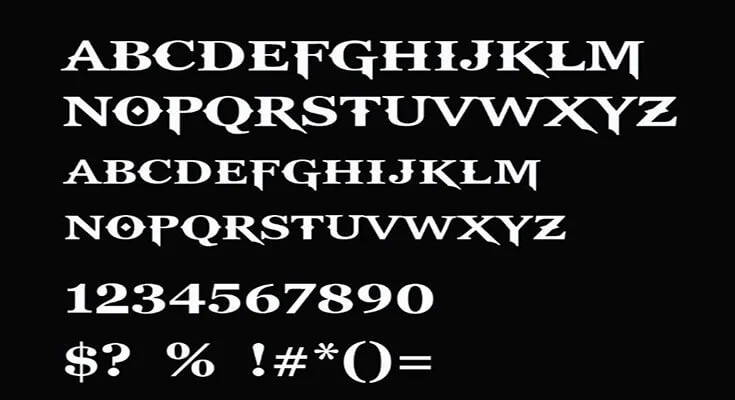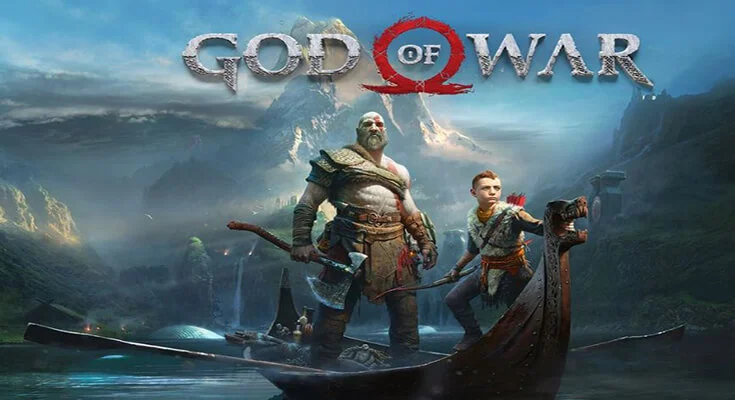
God of War Font is a beautiful modern gothic font for designing elegant titles and headings for various types of designs.
It is an action-adventure video game developed by Santa Monica Studios and published by Sony Interactive Entertainment. It was released worldwide on 20 April 2018.
It received universal acclaim for its story, world design, art direction, music, graphics, combat system, and the dynamic between the characters, especially Kratos and Atreus.
It has over 100 characters and comes in regular style only. It is characterized by a heavy structure. Sharp edges give a balanced x-height and a little gothic touch.
It’s bold, rugged, and undeniably powerful, with thick lines and sharp angles that echo the brutality and grandeur of the game’s world. It’s like Kratos himself, weathered by countless battles but still imposing and unyielding.